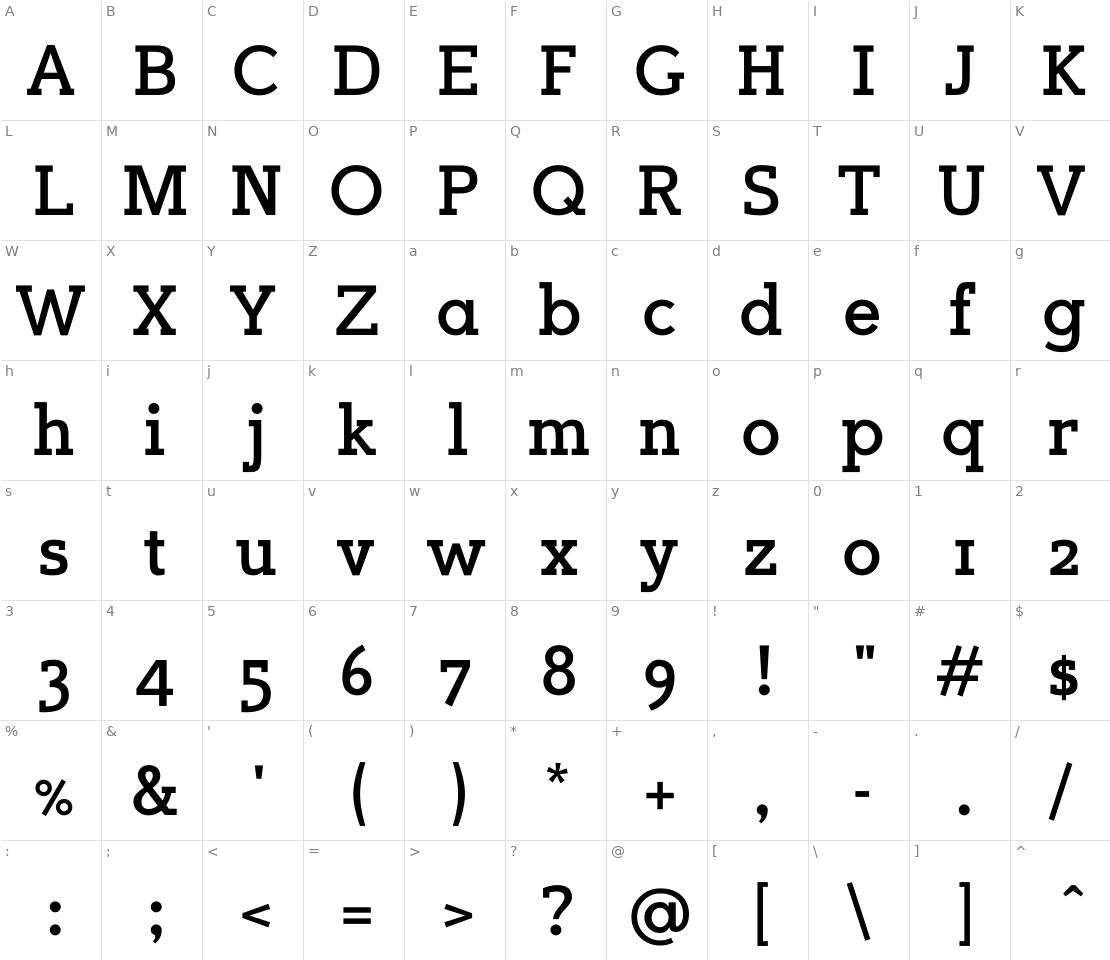
Sugarcubes
Sugarcubes is a bold slab serif from Kelvin Ma with sturdy, well-planted letterforms that feel solid without being overbearing. The generous proportions and moderate contrast keep it readable across a range of sizes, though it's most at home in headlines and subheadings where its chunky serifs can do the heavy lifting. A clean, modern take on the slab genre that stays grounded and practical.